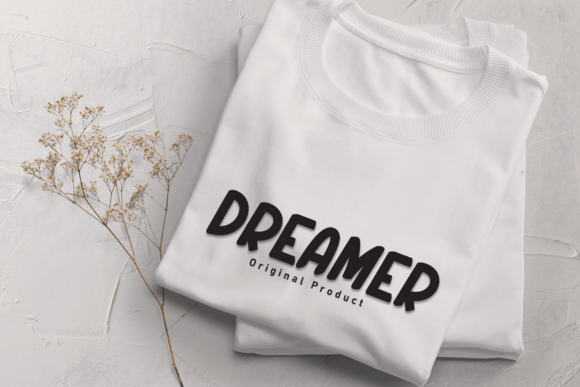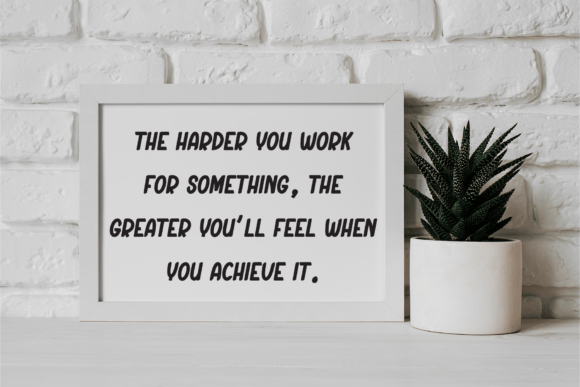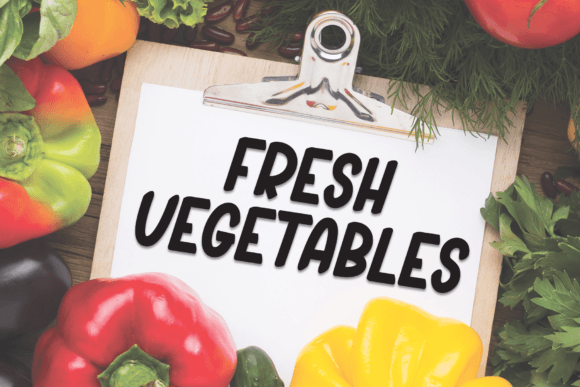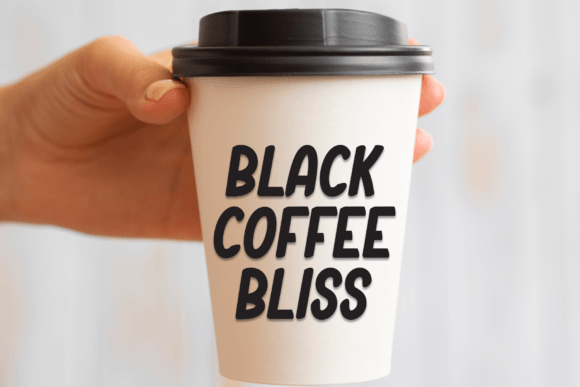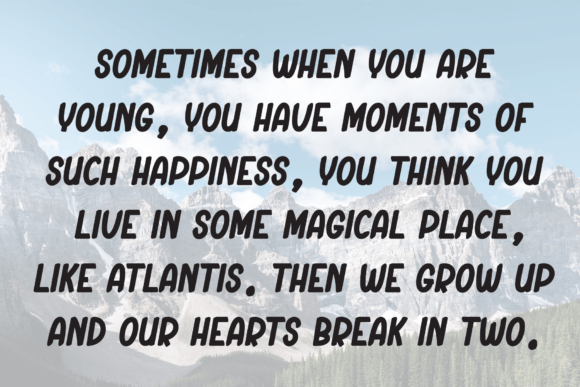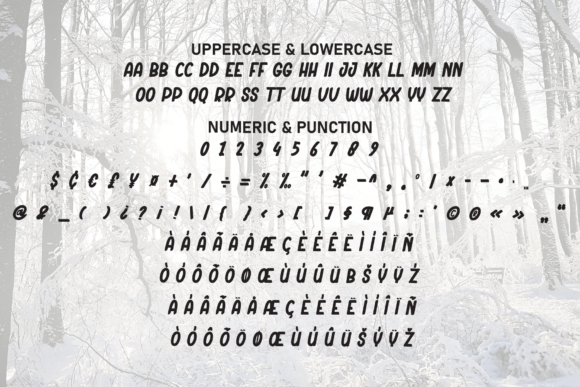
Introduction to Jungle Snowes Font
Jungle Snowes is a bold marker font that looks like it was written with a thick marker.
It has a playful and casual style, making it great for fun projects, posters, and anything that needs a lively touch .
Key Features of Jungle Snowes Font
Why Choose Jungle Snowes Font?
Jungle Snowes Font offers exceptional quality and versatility, making it a valuable addition to your design toolkit. Whether you’re creating for personal projects or commercial use, Jungle Snowes Font delivers professional results.